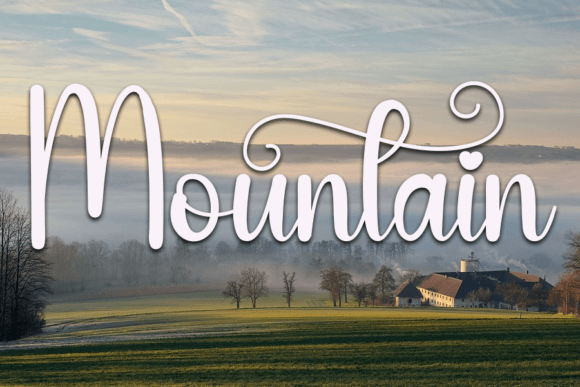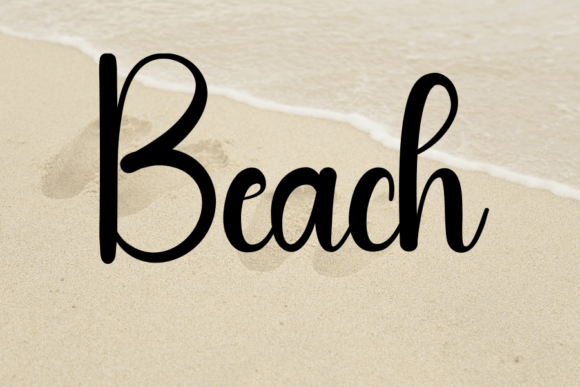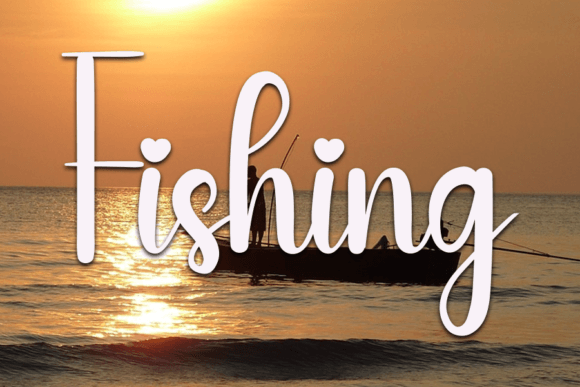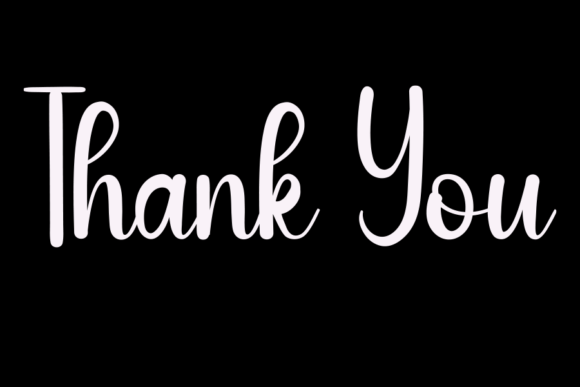
Deck the Halls with Typography: Unwrapping the Magic of Christmas Font
As a designer, there’s no feeling quite like the thrill of creating something special for the holiday season. It’s a time when typography can truly come alive, transporting us to a world of wonder and enchantment. And what better way to capture that magic than with the Christmas Font, a delightful handwritten font that’s perfect for making your designs sparkle?
Whether you’re crafting a festive logo, a holiday greeting card, or a special message for loved ones, the Christmas Font is the perfect choice. Its unique, hand-crafted letters add a touch of whimsy and charm to any design, making it a valuable addition to any designer’s toolkit.
Key Features of Christmas Font
- Font Style: A festive, handwritten font with a holiday theme, perfect for Christmas and winter designs.
- Resolution: High-resolution fonts with clear and crisp characters, ideal for printing and digital displays.
- Unique Characteristics: Includes a range of ornaments, swashes, and flourishes to add a personal touch to designs.
Christmas Font Review
Overall, I’d say the Christmas Font is a decent choice for holiday-themed projects. ✨ It’s got a playful, festive vibe that’s sure to get people in the mood for Christmas. The font is quite bold and eye-catching, making it perfect for headings or titles.
- ✨ The font is highly customizable, allowing you to adjust the size, color, and style to fit your project’s needs.
- ✨ The font is easily legible, even in smaller sizes, which is a plus for projects where space is limited.
- ✨ The font is available in a range of weights, from light to bold, giving you plenty of options for creating visual interest.
- ⚠️ The font may not be the best choice for body text, as it can be a bit overwhelming in larger blocks of text.
- ⚠️ The font may not be as versatile as some other options, as it’s quite specific to holiday-themed projects.
Overall, I’d say the Christmas Font is a solid choice for holiday-themed projects, but may not be the best fit for every type of project.
To get the most out of the Christmas Font, try combining it with other festive graphics and colors, such as red and green.
Use it to create eye-catching headlines, titles, and captions for your holiday designs.
The Christmas Font is perfect for creating holiday-themed designs, such as:
Invitations, cards, and gift tags
Posters, flyers, and social media graphics
Printable art, decorations, and party supplies
Alternatives to Christmas Font for Designers
Great Vibes is a modern, elegant script font that can add a touch of sophistication to your holiday designs. It’s perfect for creating invitations, greeting cards, and other festive materials that require a more refined look. Unlike Christmas Font, which can feel kitschy and over-the-top, Great Vibes is a great choice for designers who want to convey a sense of luxury and high-end style.
Jester
Jester is a whimsical, handwritten font that’s ideal for creating playful and humorous holiday designs. It’s great for use in social media graphics, advertisements, and other materials where you want to add a touch of fun and personality. Compared to Christmas Font, Jester is more laid-back and relaxed, making it a great choice for designers who want to create a lighthearted and approachable vibe.
Carolyna Pro is a beautiful, elegant script font that’s perfect for creating sophisticated holiday designs. It’s great for use in invitations, greeting cards, and other materials where you want to convey a sense of elegance and refinement. Unlike Christmas Font, which can feel too playful, Carolyna Pro is a great choice for designers who want to create a sense of luxury and high-end style.
Q: What is the recommended font size and line height for using the Christmas Font?
The recommended font size for the Christmas Font is between 12pt and 24pt. For optimal readability, we recommend using a line height of at least 1.5 times the font size. This will help ensure that the text remains clear and legible, even when using the font’s decorative features.